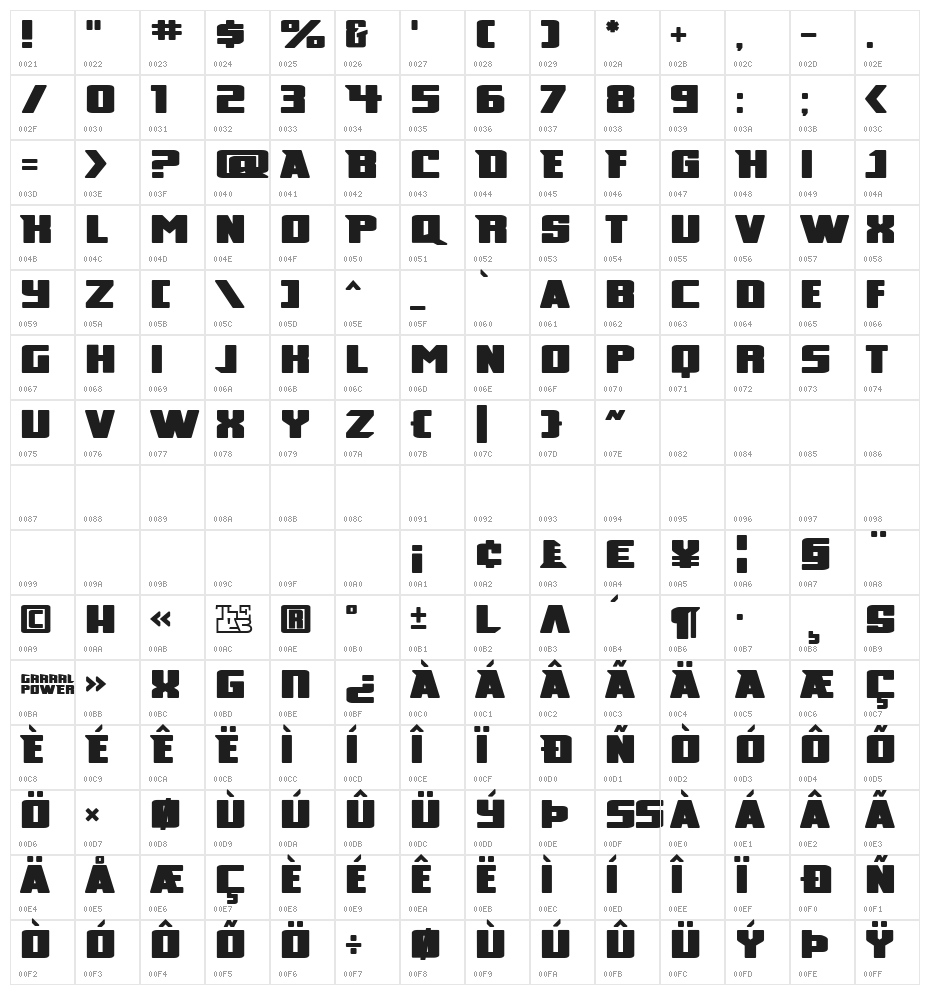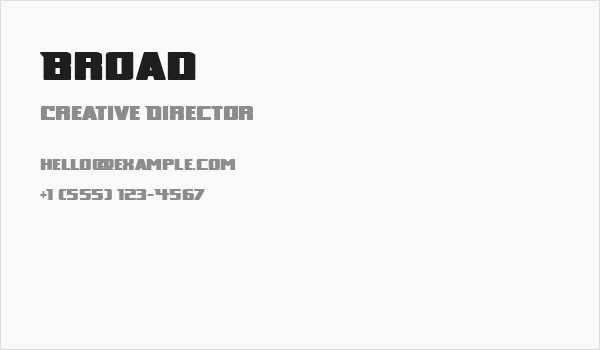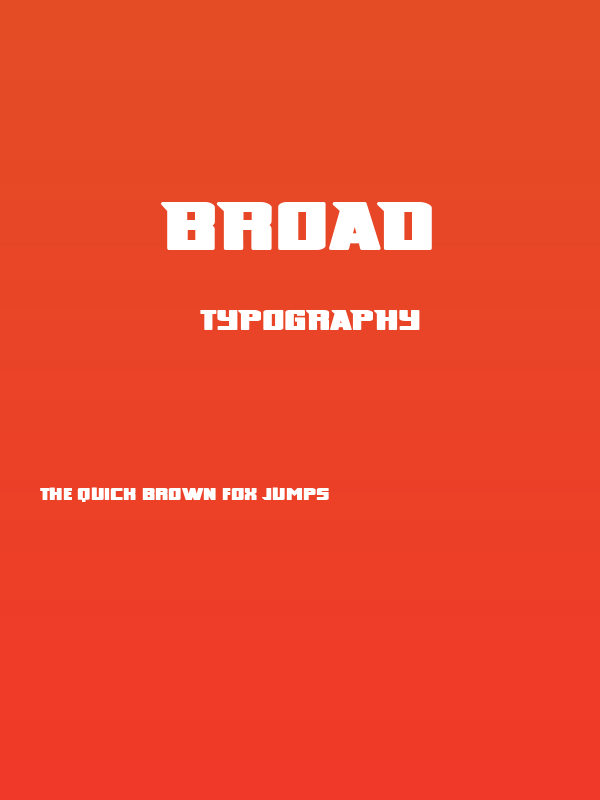
Broad Font
Broad Description
This font features a bold, geometric design with strong, angular lines and a robust presence. The characters are uniformly thick, providing a sense of stability and strength. The uppercase letters are particularly striking, with a blocky, almost industrial feel. The lowercase letters maintain the same boldness, ensuring consistency throughout the typeface. Numbers and special characters are equally bold, making them stand out prominently. The overall design is modern and impactful, suitable for making a strong visual statement.
| Proposed Projects | Ideal for branding, posters, headlines, and any project requiring a strong, impactful typeface. |